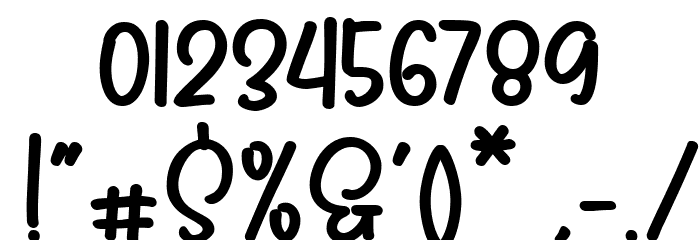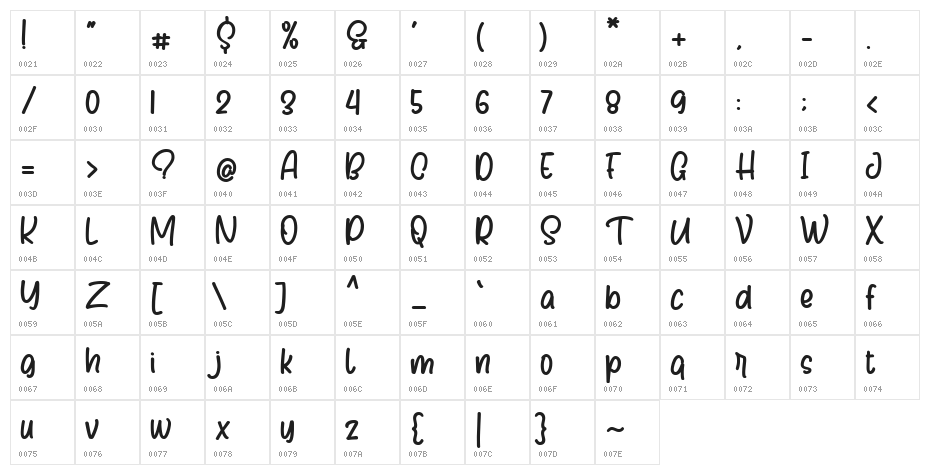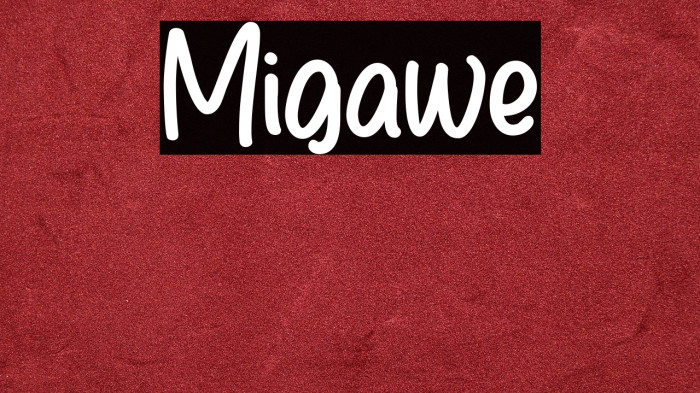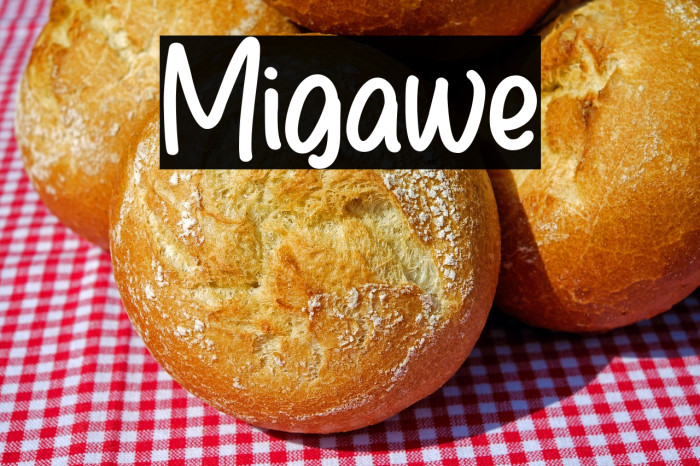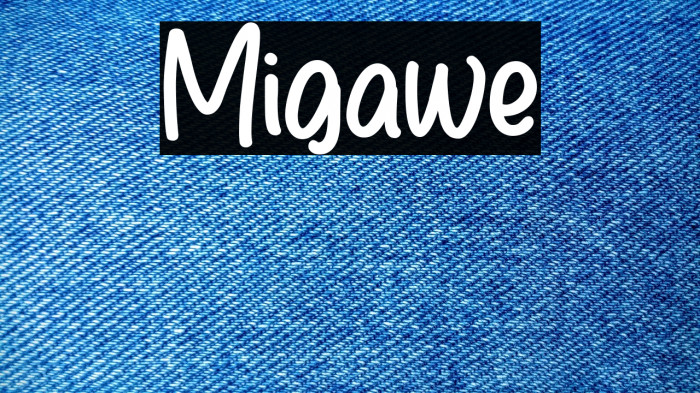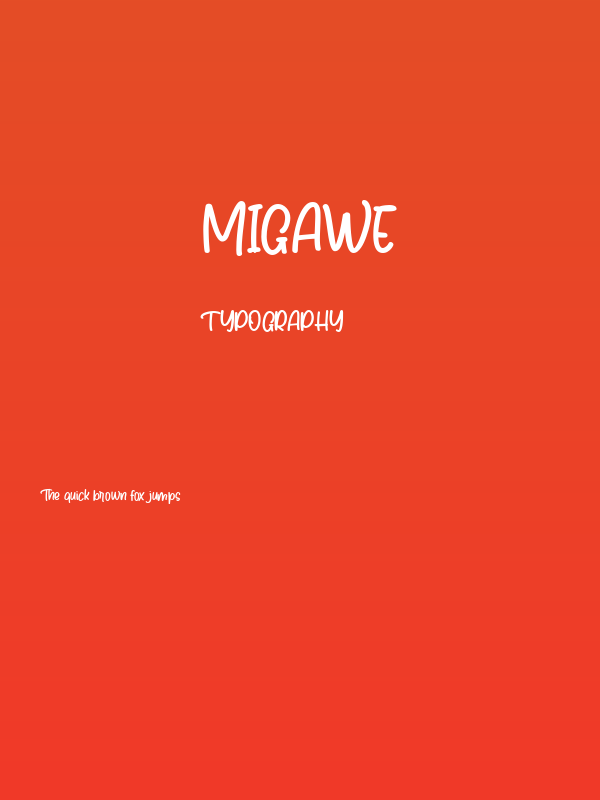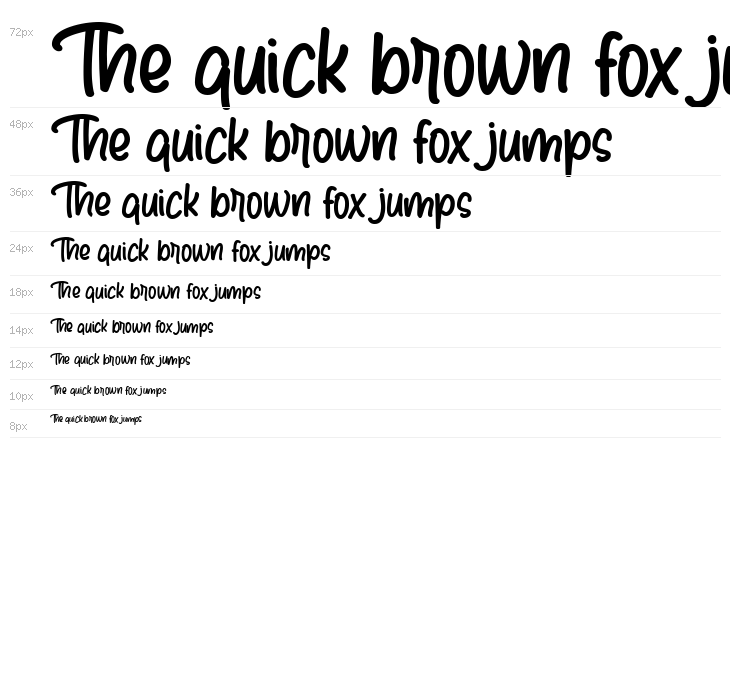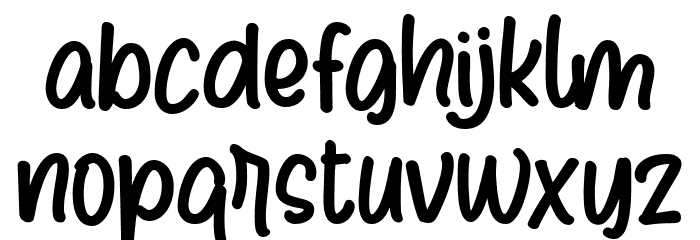
Migawe Font
Migawe Description
This playful and energetic font features a handwritten style with bold, rounded strokes. The letters are slightly slanted, giving a dynamic and informal feel. The uppercase and lowercase characters maintain a consistent flow, with smooth curves and a lively rhythm. The numbers and special characters complement the alphabet with the same bold and rounded characteristics. This font exudes a sense of fun and creativity, making it ideal for projects that require a personal touch.
Overall StylePlayful
Proposed ProjectsIdeal for greeting cards, children's book covers, playful branding, and social media graphics.